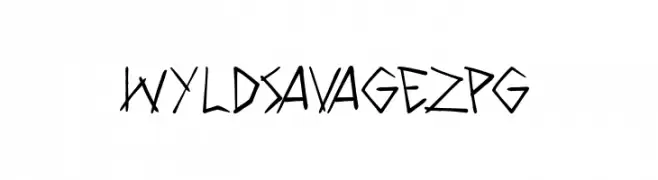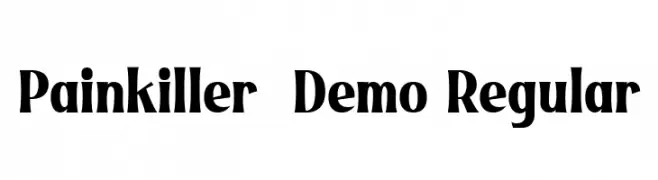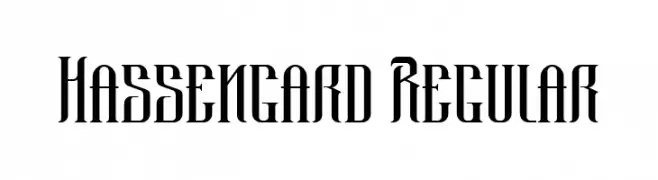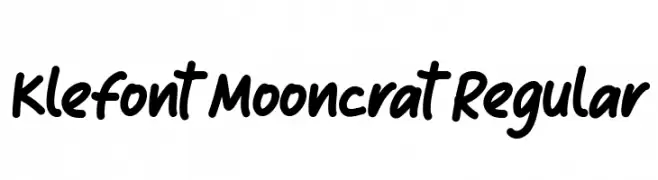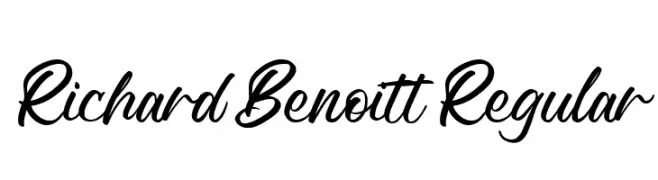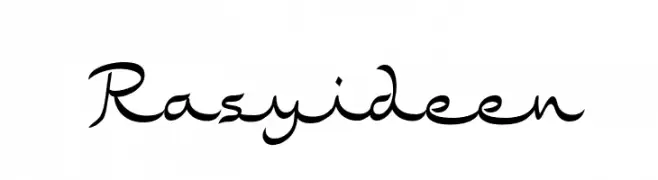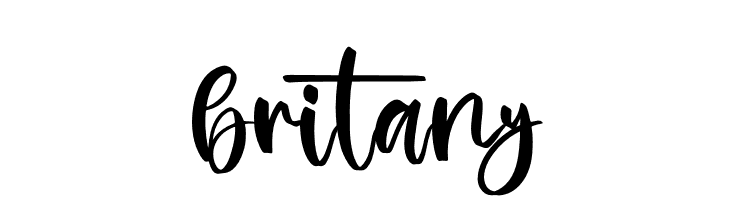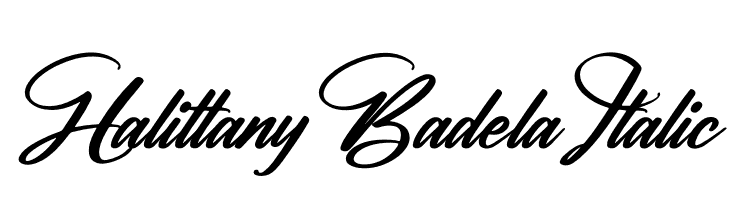
A rugged, hand-drawn font with sharp, angular lines and an edgy aesthetic.
A playful, handwritten font with medium contrast and casual style.
A bold, dynamic font with a slightly condensed and energetic style.
A bold, flowing script font with elegant curves and a modern edge.
A tall, narrow font with sharp serifs and a modern, decorative style.
A bold, playful handwritten font with a casual and friendly style.
A dynamic and elegant script font with fluid, cursive strokes.
A flowing, cursive font with elegant loops and a handwritten style.
A dynamic and fluid script font with elegant, flowing letterforms.
A fluid, cursive font with elegant, connected characters.